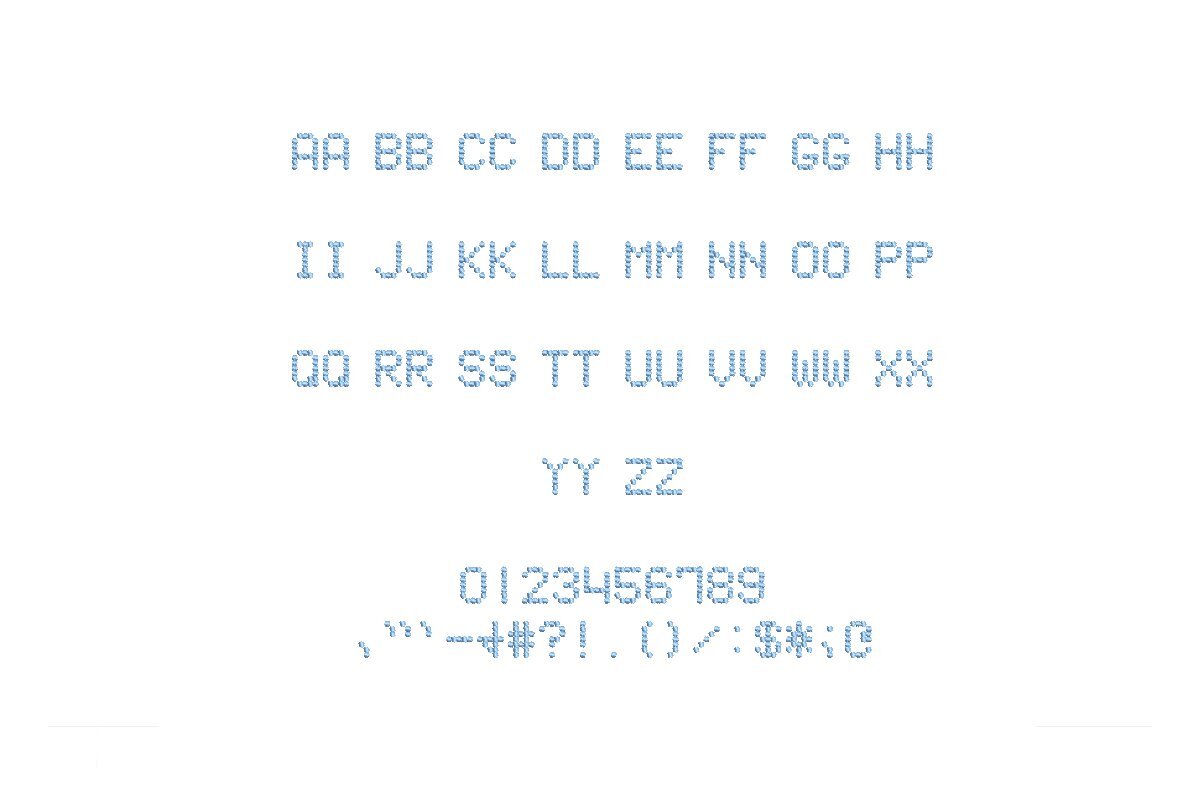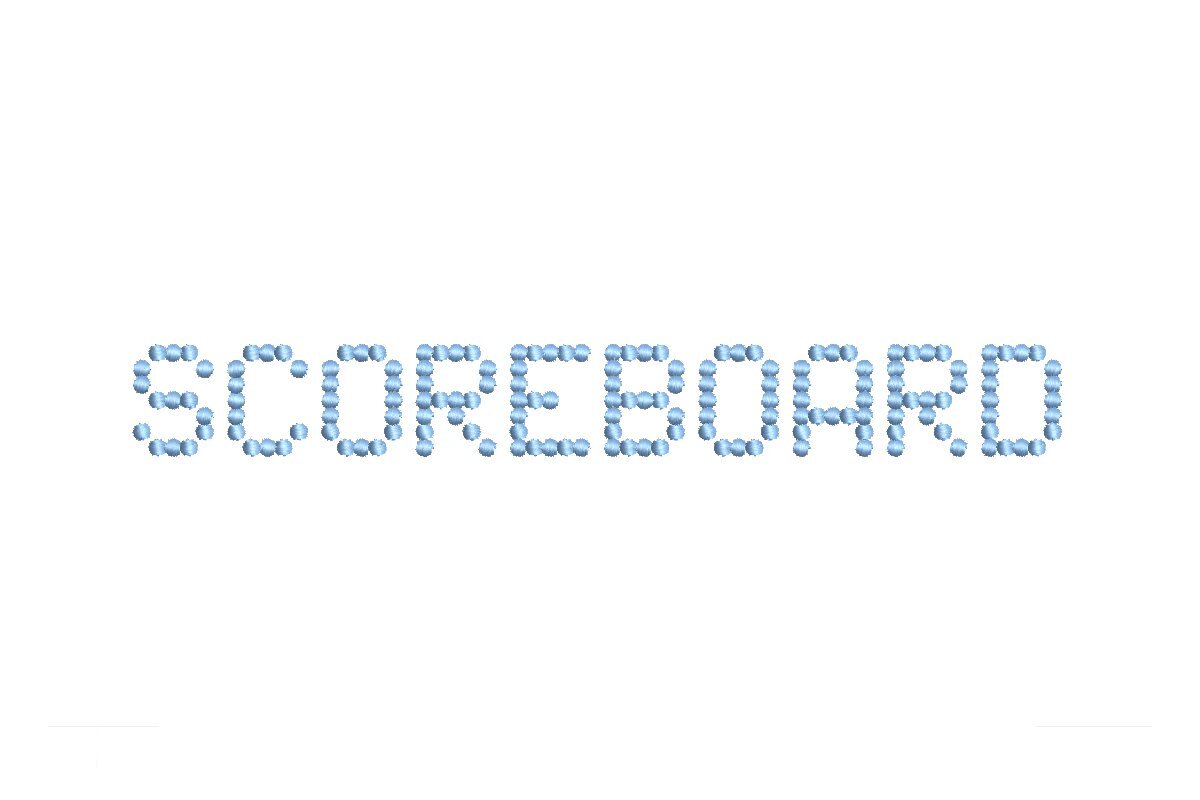
Introducing Scoreboard ESA Font - Your Ticket to Sporty Embroidery! Tailored for perfect compatibility with Wilcom Studio e4.5.6 and Hatch 3 versions and beyond, this font adds a touch of athletic flair to your designs. Whether you're a sports enthusiast or a professional, Scoreboard ESA Font unlocks a world of creative opportunities. Seamlessly integrate with the latest software, ensuring efficiency and precision. Every stitch represents dedication, making your sport-themed embroidery projects stand out. Don't miss the chance to enhance your collection with Scoreboard ESA Font. Get ready to infuse a sporty spirit into your designs and score big in the world of embroidery!